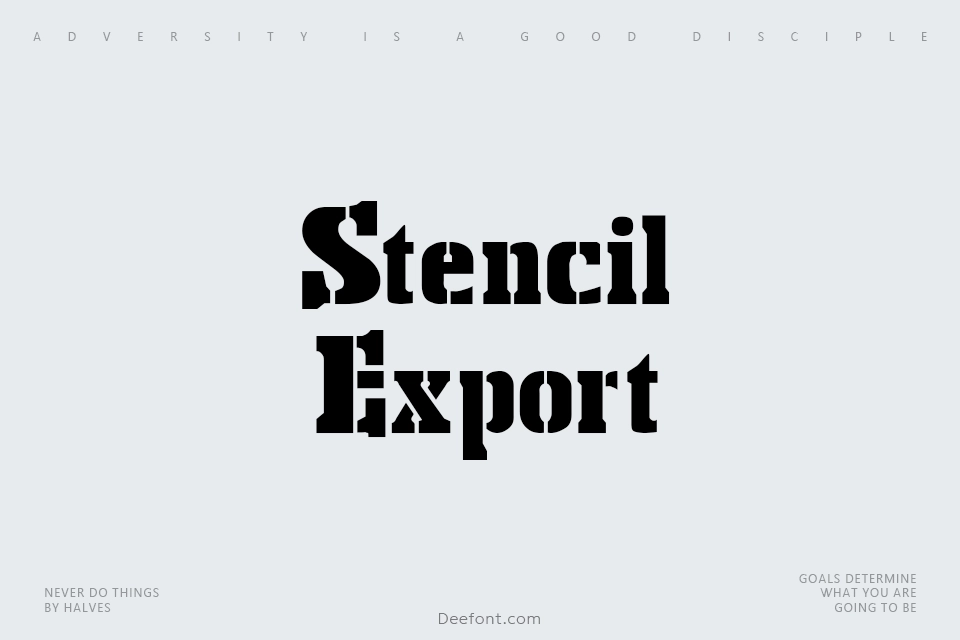
Stencil Export Font
Stencil Export is a bold, industrial stencil font featuring distinct geometric cutouts and strong visual impact. Designed with a rugged, utilitarian aesthetic reminiscent of military and industrial stencils, it combines uppercase and lowercase letters with consistent weight throughout. The font includes 88 carefully crafted characters with special geometric shapes ideal for headlines, signage, and branding projects requiring an authoritative, robust appearance.